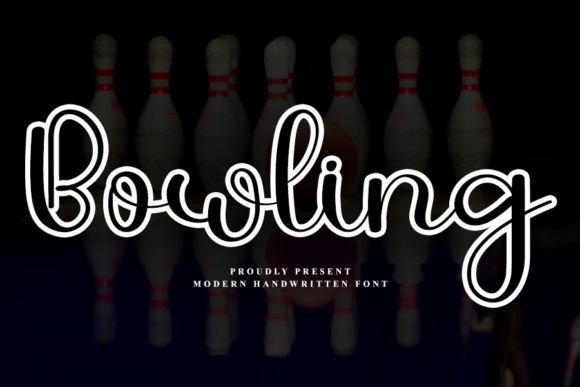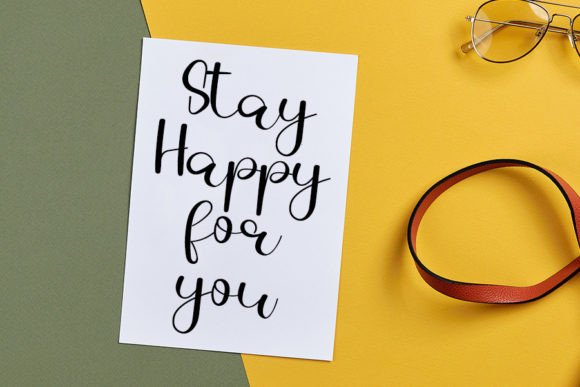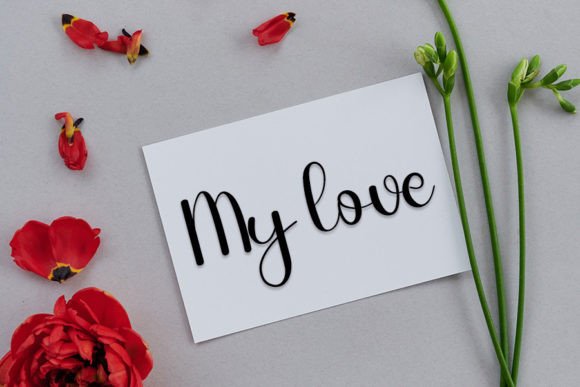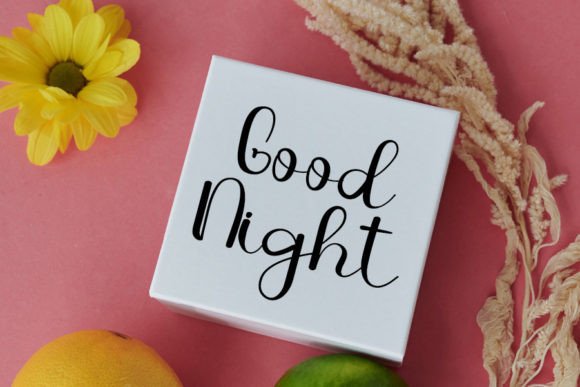
Bowling Font
A Neat and Elegant Handwritten Font
Bowling is a refined handwritten script font designed to add elegance and style to your creative projects. With its graceful curves and smooth strokes, this font creates a timeless feel that makes every design look polished. Whether you’re crafting wedding invitations, building a brand, or creating social media graphics, Bowling ensures your work stands out with sophistication.
Its clean lines make it suitable for both formal and casual designs, giving you plenty of versatility.
Bowling is a font you’ll reach for again and again. It’s perfect for wedding invitations, menus, and thank you cards. The handwritten style adds a personal touch that makes any event feel special.
For branding, Bowling works beautifully on logos, business cards, and product packaging. The elegant script helps your brand feel premium and memorable.
This font is also ideal for quotes, greeting cards, and custom gifts. Its refined look makes any message feel heartfelt and unique.
On social media, Bowling brings a polished, cohesive feel to your posts. Whether you’re designing inspirational quotes or promotional content, this font helps your visuals stand out.
Even though Bowling has an artistic look, it stays clear and legible at any size. The balanced spacing and smooth connections between letters make your text easy to read, whether it’s a headline or a small caption.
For a professional look, pair Bowling with a clean sans-serif font. Use Bowling for titles and feature text, and the sans-serif for supporting content. This approach creates a balanced design that feels modern and inviting.
To showcase Bowling’s elegance, use soft colors and minimalist backgrounds. Light shades like ivory, blush pink, or muted gray let the font’s details shine without competing with other elements.
For wedding stationery or event materials, add delicate illustrations or subtle textures to complement the handwritten style. For branding and packaging, keep the layout simple so the font remains the focal point.
On social media, embrace plenty of white space. This helps your content look clean, polished, and easy to read.
Think about the mood you want to create. Bowling is perfect for designs that need to feel timeless, warm, and refined.
Bowling isn’t just a handwritten script font—it’s a creative tool that helps you design with elegance and personality. From wedding invitations to logos, it adapts seamlessly to any project.
Adding Bowling to your font collection ensures you always have a reliable, stylish option ready for any occasion. Whether you’re working on personal projects or professional designs, this font adds a touch of sophistication that makes every creation feel special.